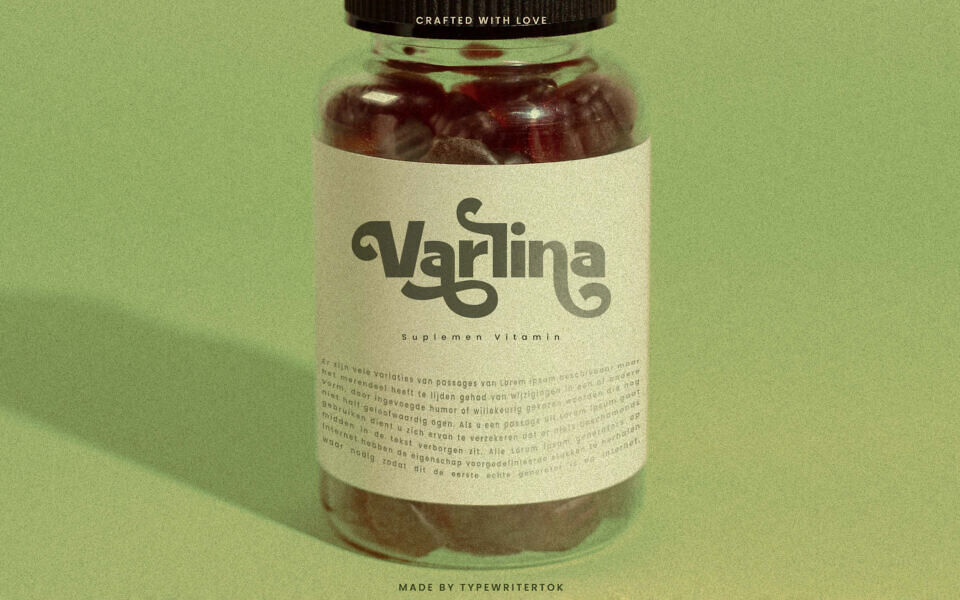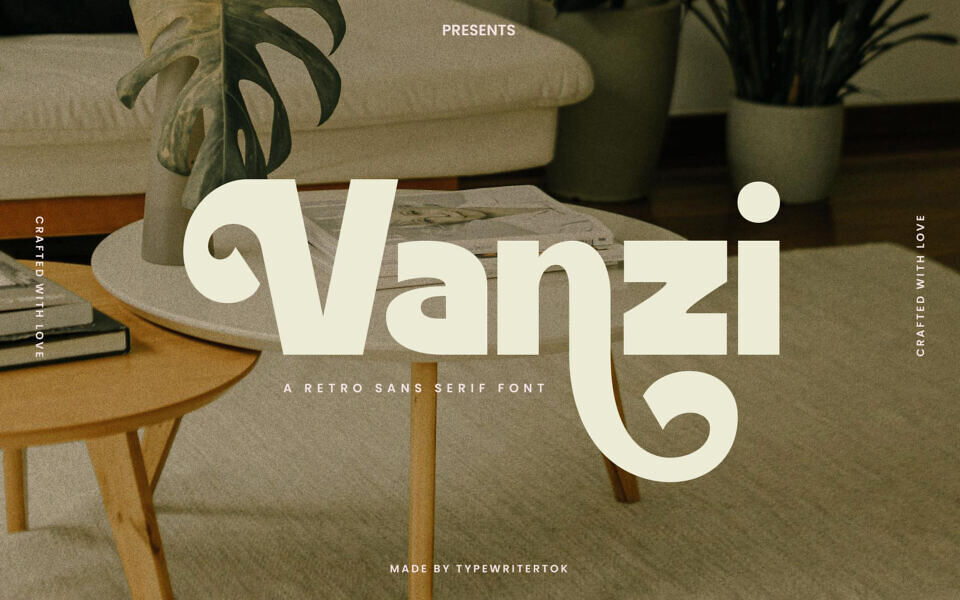
Vanzi Font
Vanzi is a retro sans serif font that effortlessly blends vintage charm with a bold modern twist. Its smooth, playful curves and dramatic swashes bring a fresh personality to headlines, logos, and branding visuals.
Perfect for those seeking a nostalgic yet contemporary aesthetic, Vanzi is crafted with love to elevate any creative project with flair and character.
Designed by: Typewritertok